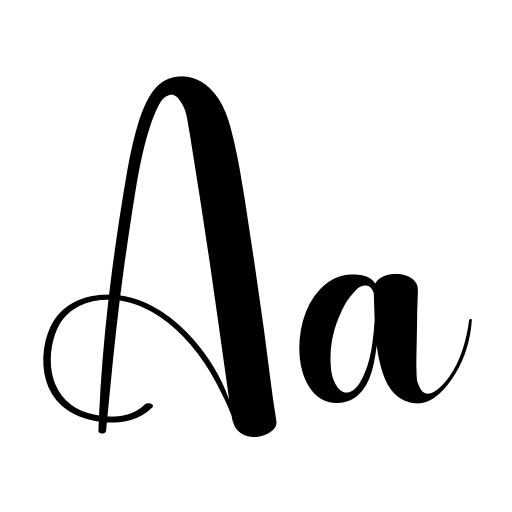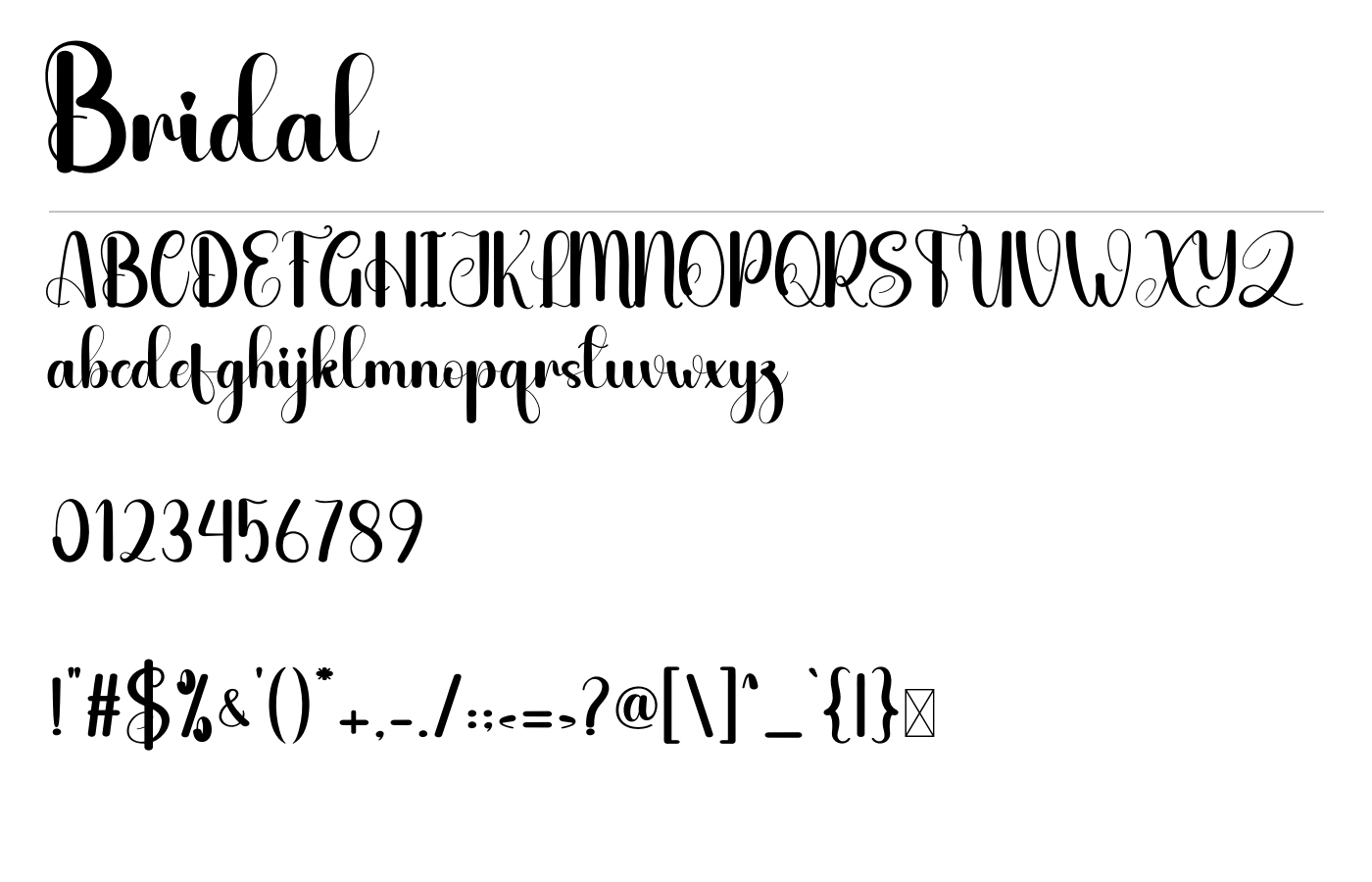
Bridal Font is a stylish script typeface featuring elegant, flowing letterforms with high contrast between thick and thin strokes, designed to mimic sophisticated handwriting. Its delicate swashes and loops give it a romantic and graceful personality, making it perfect for wedding invitations, fashion branding, and other refined, decorative uses. This font combines readability with ornamental flair, ideal for creating a luxurious and charming visual impact.
Bridal Font